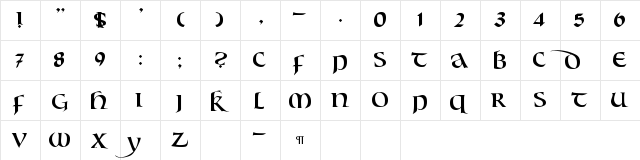
CallifontsF60TrueType Regular
Design Context for CallifontsF60TrueType Typeface
CallifontsF60TrueType is a composed and adaptable typeface that performs quietly and consistently across a wide range of design contexts.